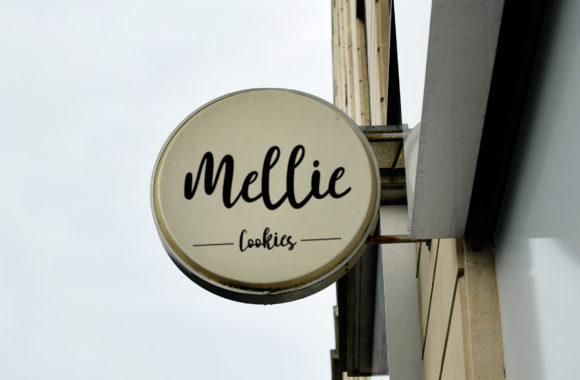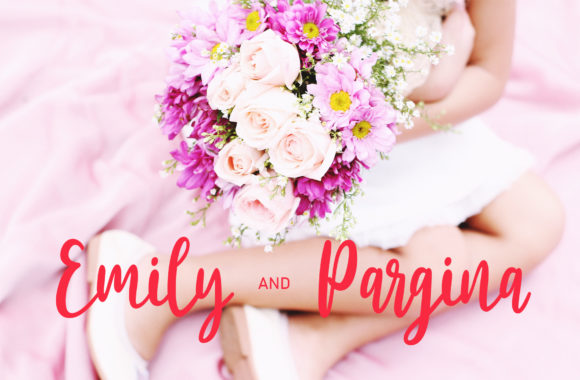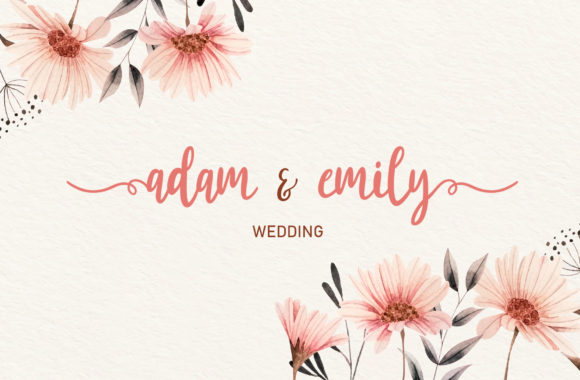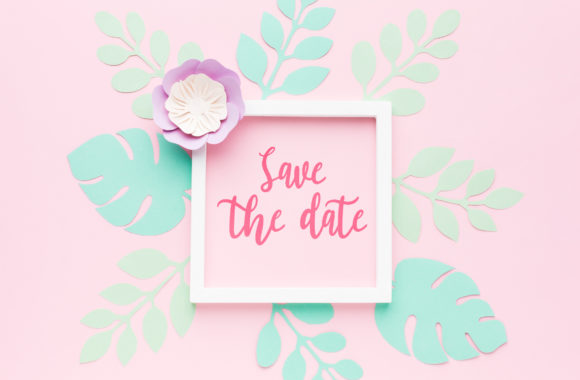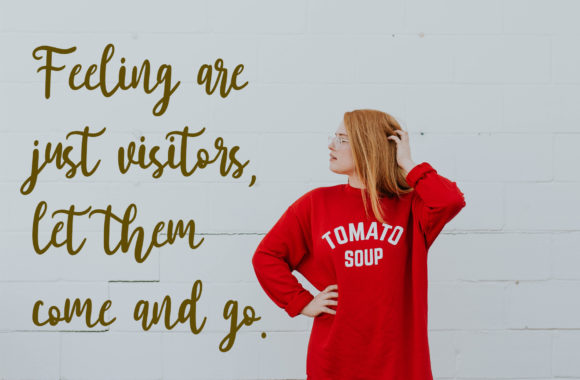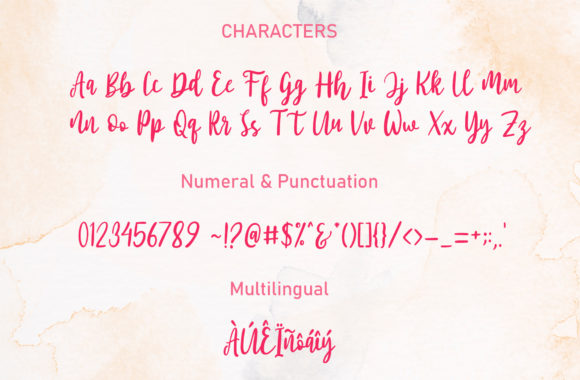
Introduction to One and Only Font
One And Only is a modern handwritten font with heart swashes.
Fall in love with its authentic feel and use it to create gorgeous wedding invitations, beautiful stationary art, eye-catching social media posts, and beautiful greeting cards .
Key Features of One and Only Font